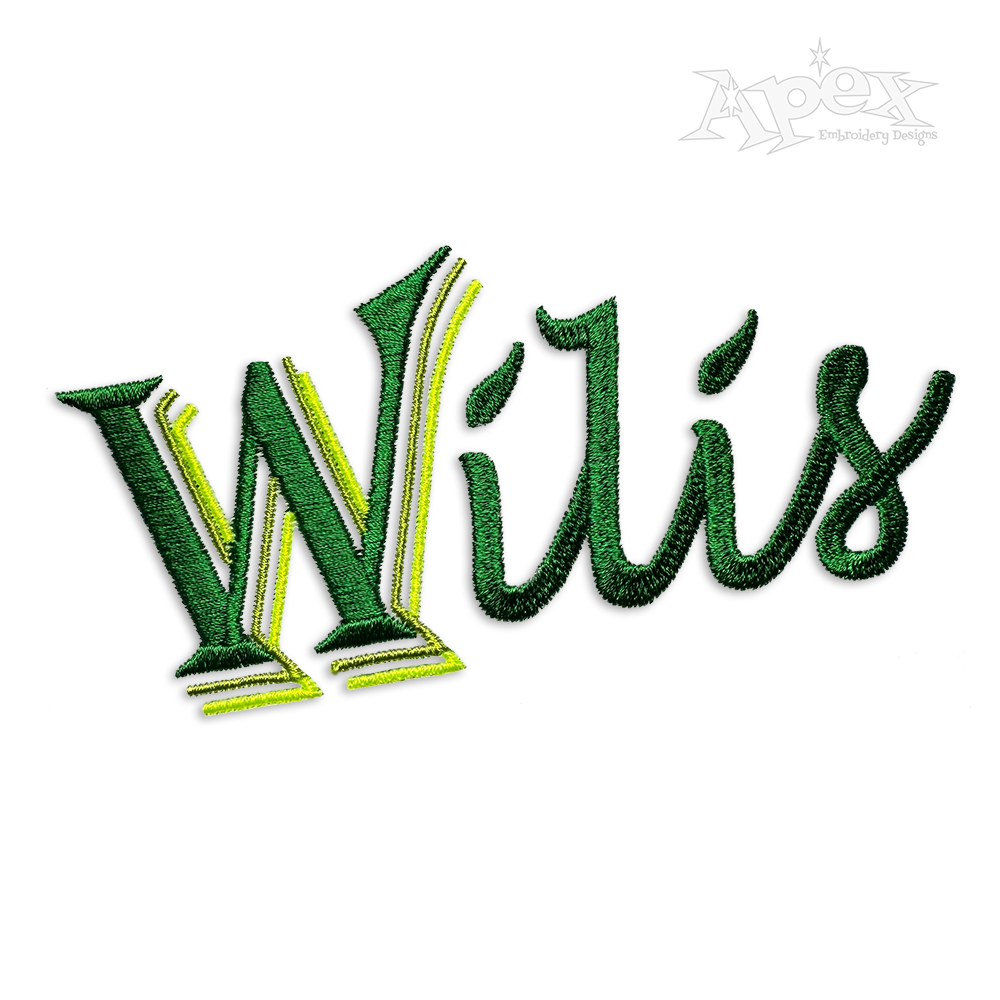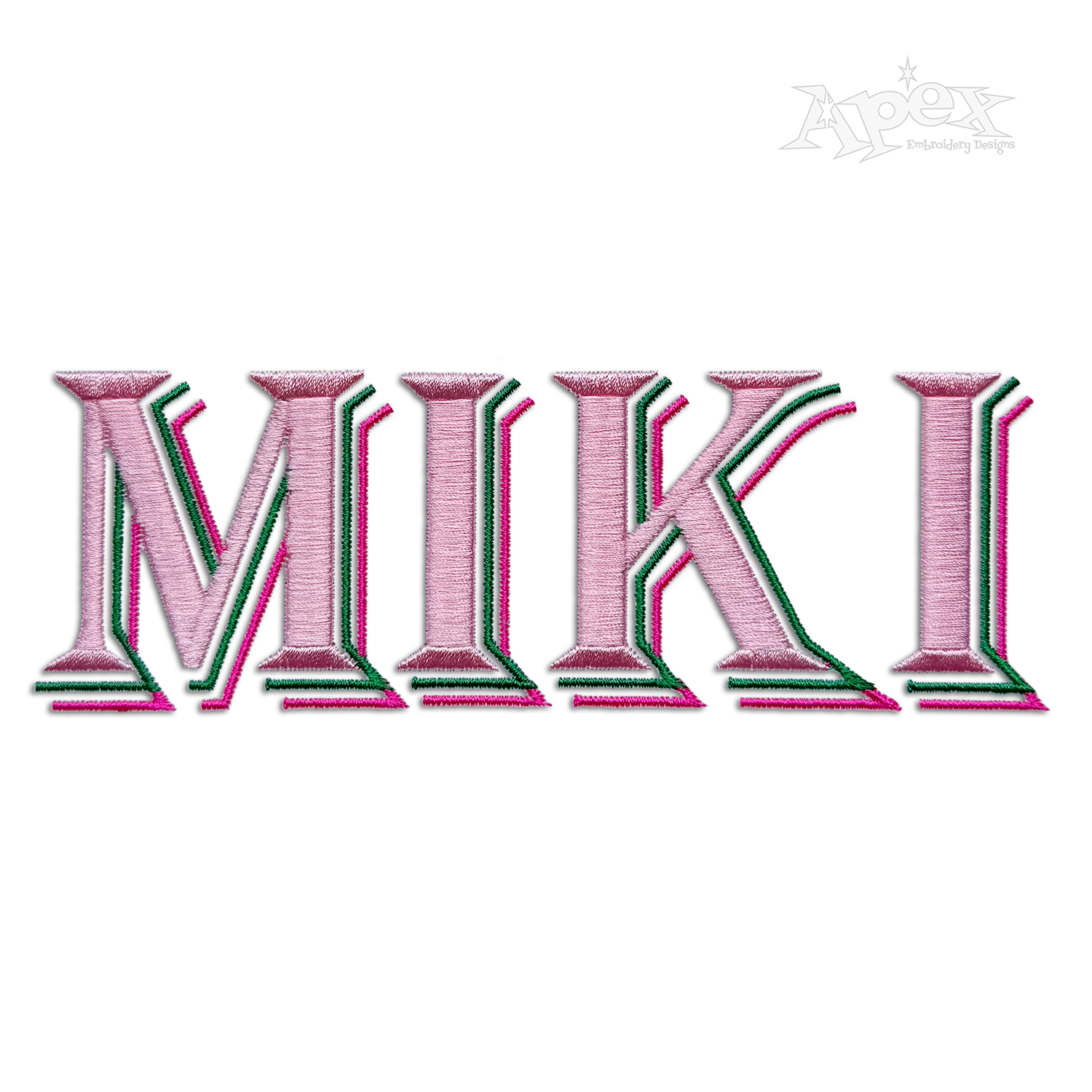
Shadow Embroidery Font
Born from an appreciation of vintage mid-century sign painting and modern athletic typography, our Shadow Embroidery Font captures the optical thrill of three-dimensional depth purely through thread. When digitizing this collection, our focus was on the interplay of light and cast shadow—layering two- to three-color stitch passages to create a clean, floating illusion across the base fabric. Whether stitched in harmonious tonal gradients or punchy retro contrasts, each letterform delivers vibrant impact, tactile presence, and a sense of architectural structure that elevates casual garments and bespoke accessories into custom statement pieces.
Shadow Embroidery Font Craft & Letterform Details
Digitizing a multi-color stacked alphabet requires intense technical discipline. Simply offsetting duplicate letters creates dense, unmanageable stitch build-up that puckers fabric and breaks needles. For this design, our artisan digitizers carefully mapped each letter’s primary face, secondary accent, and base drop shadow as distinct, interconnected elements. Micro-calibrated push-and-pull compensation ensures that the overlapping satin strokes nest flush against one another, eliminating unsightly gaps along contrasting color boundaries.
The satin stitch columns feature deliberate angle tapering that follows the natural geometry of each letter, catching natural room light across the thread sheen to enhance the illusion of genuine physical relief. Underlay foundations are balanced to support the multiple thread layers while keeping the final embroidery soft, pliable, and comfortable against the skin, guaranteeing an elevated stitching experience from the first trim to the final knot.